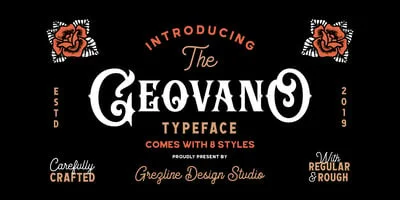
Geovano Font
Geovano Font is ideal for earth science research institutes, geological survey departments, environmental mapping organizations, geography education programs, topographical design projects, cartography studios, geological consulting firms, environmental conservation groups, academic geography conferences, spatial analysis presentations, terrain modeling software, and sophisticated geographic information communications.
This font is exciting because it captures the scientific precision and exploratory spirit of geographical discovery, featuring systematically elegant letterforms that navigate across the page with the same methodical accuracy and territorial understanding found in professional geographers and cartographers who map the world's landscapes, analyze spatial relationships, and document the complex interactions between human civilization and natural terrain through careful observation and scientific measurement. The thoughtfully structured character design embodies both the mathematical precision required for accurate geographical analysis and the adventurous spirit that drives geographical exploration, creating typography that feels both scientifically reliable and intellectually inspiring. Each letter demonstrates the kind of spatial awareness and systematic thinking that transforms ordinary text into expressions worthy of geographical scholarship and territorial discovery.
The Geovano Font family includes multiple weights from light to bold, with corresponding italic styles, and comprehensive character sets featuring geographic numerals, scientific punctuation marks, and design elements inspired by topographical maps, compass directions, cartographic symbols, and geographical surveying instruments. Advanced versions may offer additional stylistic variants with enhanced mapping effects, alternate characters optimized for scientific documentation, and geographic ornaments that celebrate the precision and discovery inherent in geographical sciences.
Whether you're developing geographical research materials, creating environmental education content, or designing cartographic presentation materials, Geovano Font provides the scientific precision and geographical sophistication your project needs to communicate effectively within the geographic sciences while honoring the methodical excellence that defines professional geographical research and territorial analysis. This typeface transforms ordinary text into geographical declarations that celebrate both the scientific rigor of spatial analysis and the adventurous spirit of territorial exploration. The font's geographic character makes it essential for institutions and publications serving the geography and cartography communities. Geographic researchers and environmental mapping specialists will appreciate how this font brings authentic geographical tradition to their work with its genuinely scientific and territorially sophisticated character that maps the world with precision.